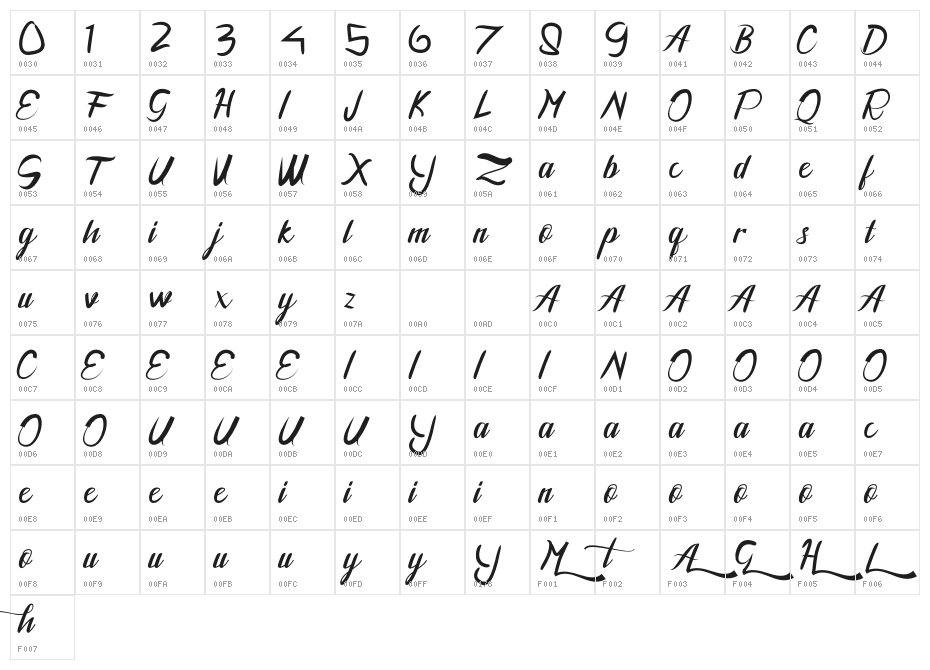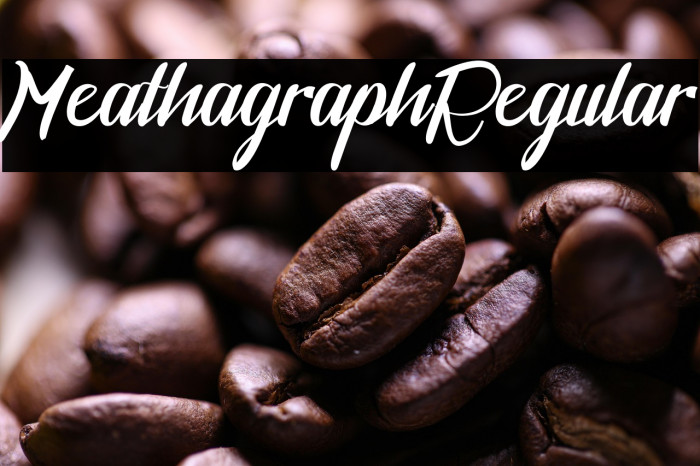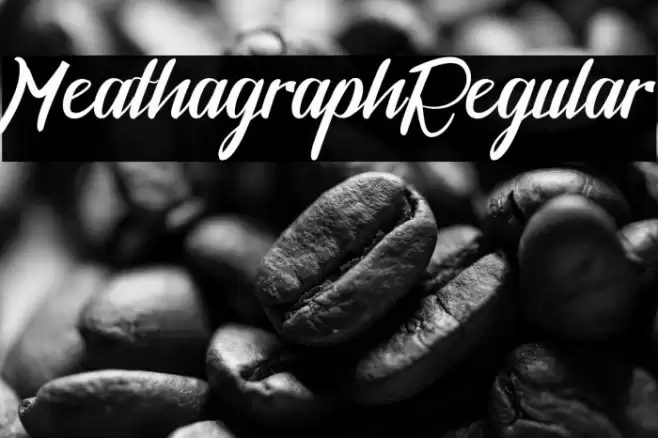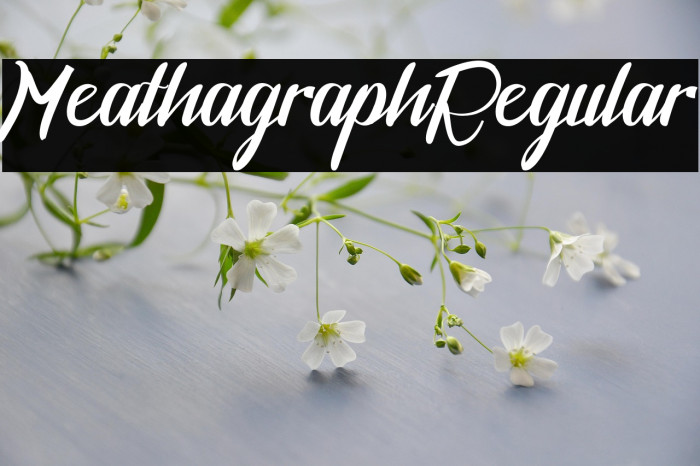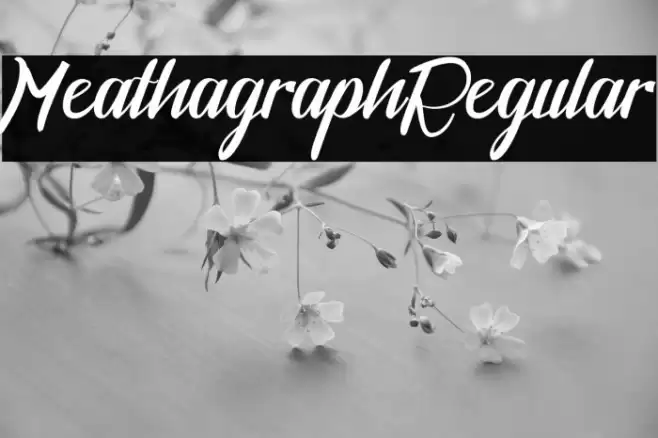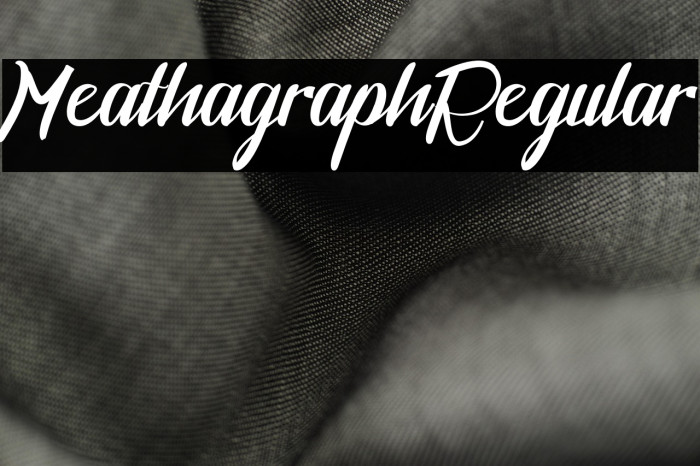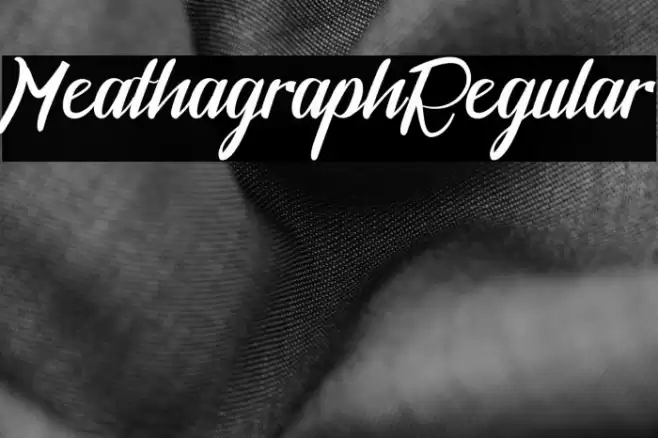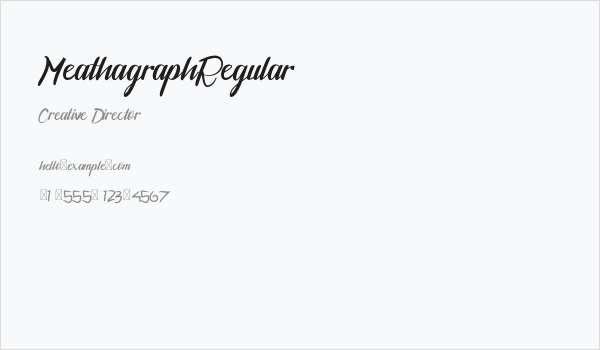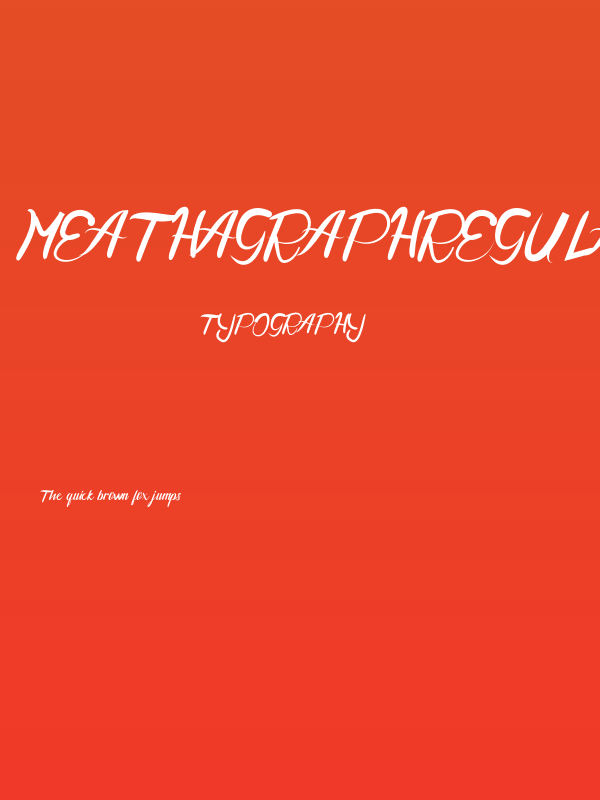
MeathagraphRegular Font
MeathagraphRegular Description
This font features an elegant and flowing script style, characterized by its smooth, cursive letterforms that convey a sense of sophistication and grace. The uppercase letters are bold and slightly slanted, with sweeping curves and flourishes that add a decorative touch. The lowercase letters maintain a consistent flow, with some characters featuring distinctive loops and tails. The numerals are designed to match the script style, with curved lines and a slight slant that harmonizes with the overall aesthetic. This font is ideal for creating a sense of elegance and formality in design projects.
| Proposed Projects | Ideal for wedding invitations, elegant branding, greeting cards, and formal event programs. |